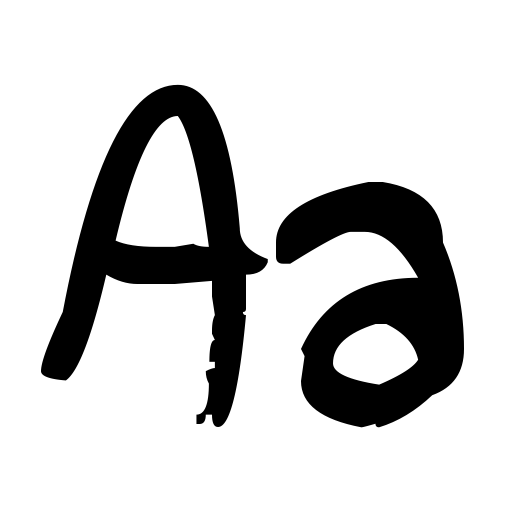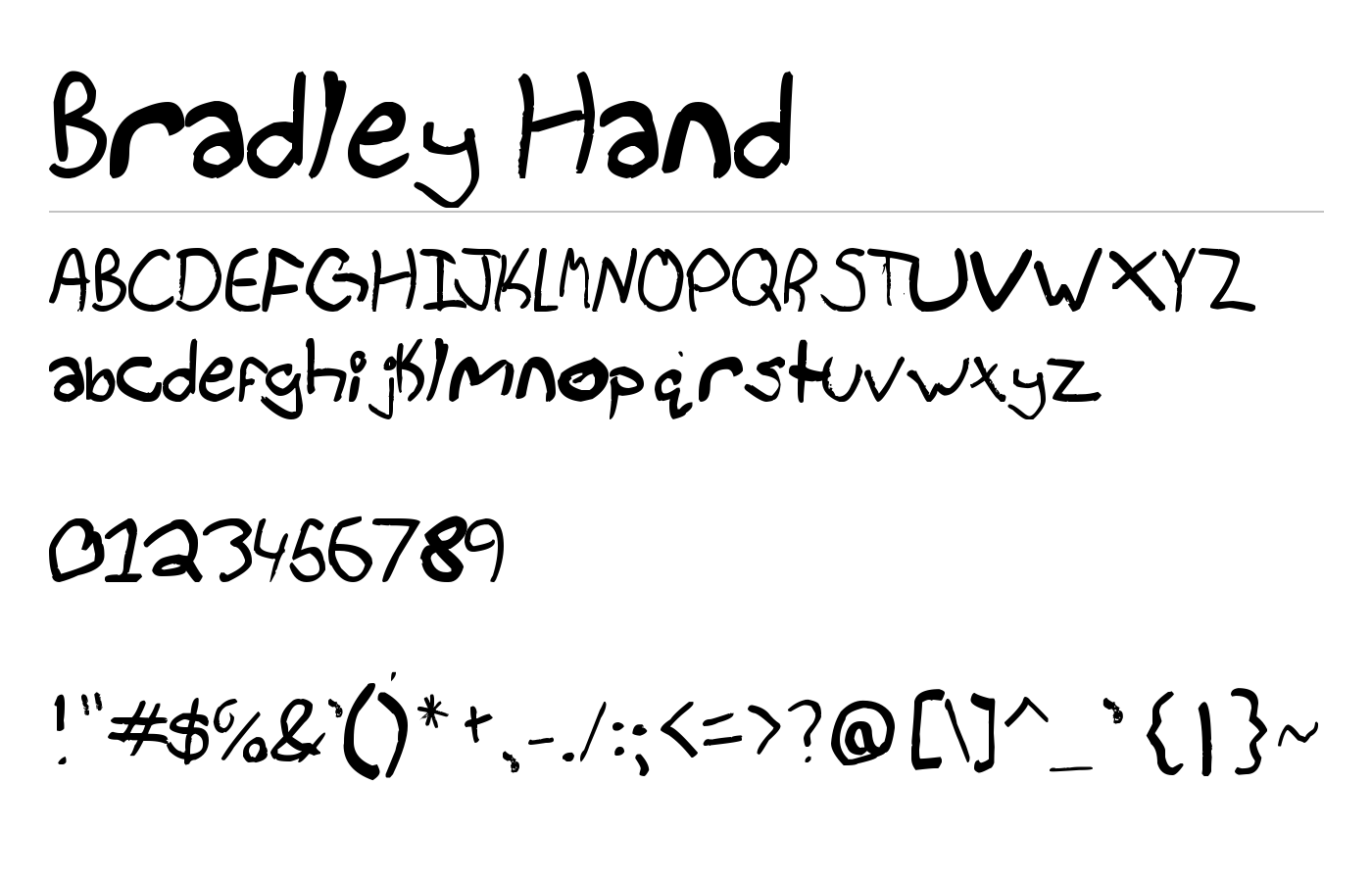
Bradley Hand is a casual, handwritten sans serif font that mimics natural pen strokes with a warm, friendly feel. Its uneven letterforms and varied stroke widths give it an informal, personal touch, making it ideal for approachable branding, informal communications, and creative projects that seek a human, relaxed vibe. This font works well in headings, invitations, and any context where a genuine, welcoming style is desired.
Bradley Hand Font